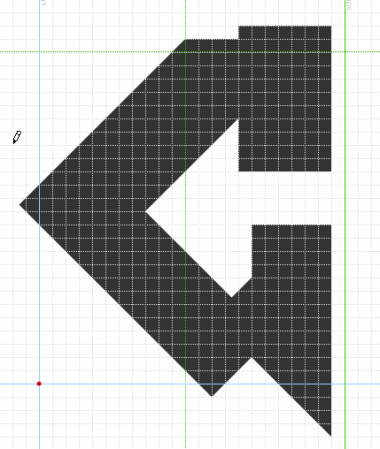
’Struct. Yeah.
10/10, even in advance of caps!
You've got something special here. More please!
Yeah, keep going!
I'm with the guys: the font has soul! Complete it, pleasssse!
I'll join the gang too! Please keep goin! lol
Aah! What a fantastic, dysfunctional creation!
Glad you like it. I'm going to finish it and then invite anyone who feels so inclined to suggest fixes. I've made so many arbitrary decisions that some of the glyphs are suffering an identity crisis.
It may not be fixable, of course, but it will be fun finding out.
It’s somehow this amazing gothic (as in sans) metal graffiti script. No staid corners on this one. Completely linear and yet dancing with life. All that astonishing beauty in even the harmony of the imperfections, all these dynamic overshoots, willfully irregular strokes, classy decenders (wow on the success of both esses)! How do you do it, intaglio?!
And then you based this almost exclusively on an asymmetrical pentagon! This has the makings of a true classic, intaglio. meek is so right about this one being special.
Now the question is di I stick with the eccentricities or calm it down somewhat? The caps, particularly, show an uneasy mix-and-non-match (B,D,P,R). At the moment it looks as if the ghost of some random caligrapher got in there. I think I will probably have to make those joins more in keeping with the rest of it. Then there's the Q. Any suggestions?
I'll sleep on it. Tomorrow the obvious outsiders will be staring me in the face.
Haha, I wasn’t taking the calligraphy element as random at all, just winsomely modern! Some of the most astonishing innovations in hand lettering seem to emerge fully formed from the crucible of pure typographic naivité. I mean, what beautiful babies come from these non-matches.
Not to say your are at all typographically naive, quite the opposite. Yet you have given yourself rules that compel you to do “the wrong thing”. Keep doing it then, it’s working!
And that Q is totally bad ASS! I suggest you don’t change a brick of it.
Really hard for me to say what to change when I personally love all the inconsistencies. You may need a more objective analysis, but such an analysis is antithetical to the spirit of this font. I would say: all the most amazing fontstructions take flight with their flaws, and this one among them!
Can I vote twice?
Heh heh! The rest of the numerals are going to be a bit of a brain-teaser.
@will.i.ૐ: I think you're probably right, rationalising it would wreck it. Besides, where to start?!
@meek: Why isn't this a Top Pick???
Well, technically it's not finished. I'm a bit stuck knowing how to go about some of the numerals.
@intaglio: Dear maestro, you know it. Create a glyph is to solve a labyrinth. Create a font is like solve 300 labyrinths all togethers in a row. If we love Typography, we can try solve the more of these labyrints. The Future is here round us each second! You do it!
Yeah. That's what I love about typography. Everything affects everything else. It's certainly a challenge.
I see those numerals took some fancy punching. Nice! All caps is capital-B Bold.
If there is one change to make, it’s further differentiating (just a bit, if possible) the C and G.
@will.i.ૐ: just for you... exception 13b:
B O X